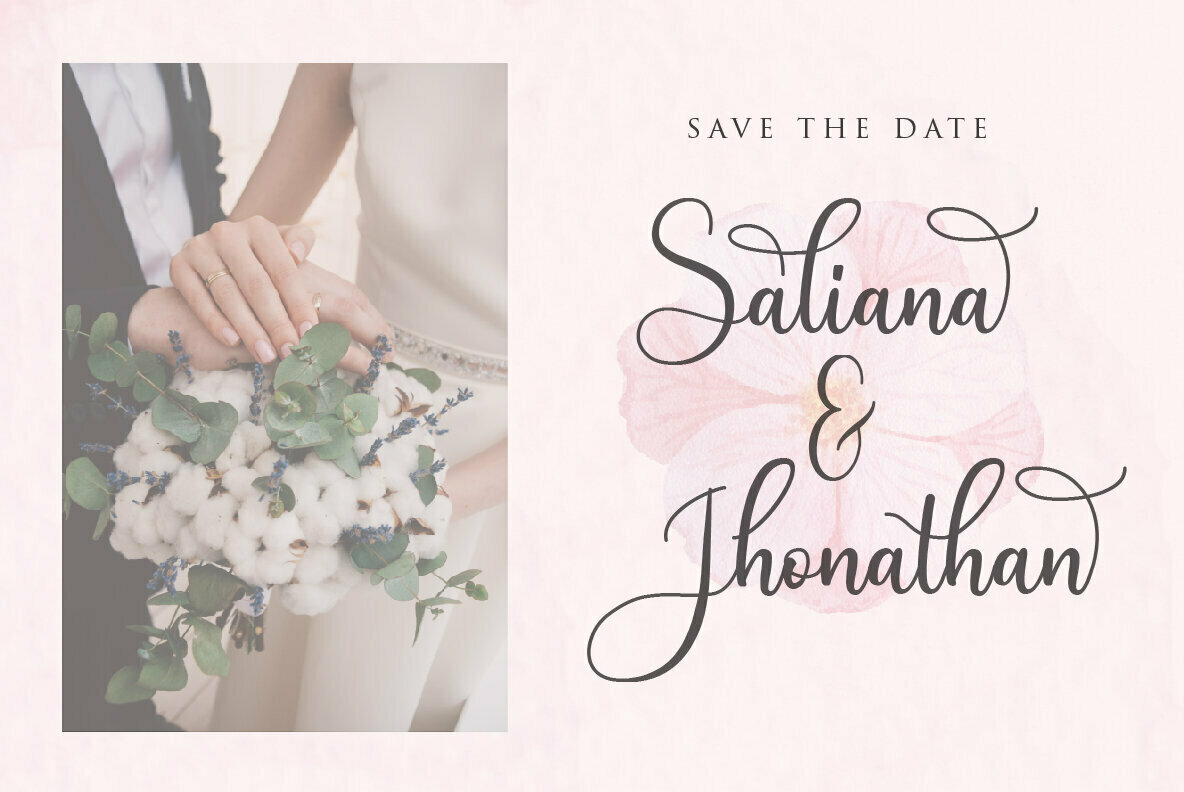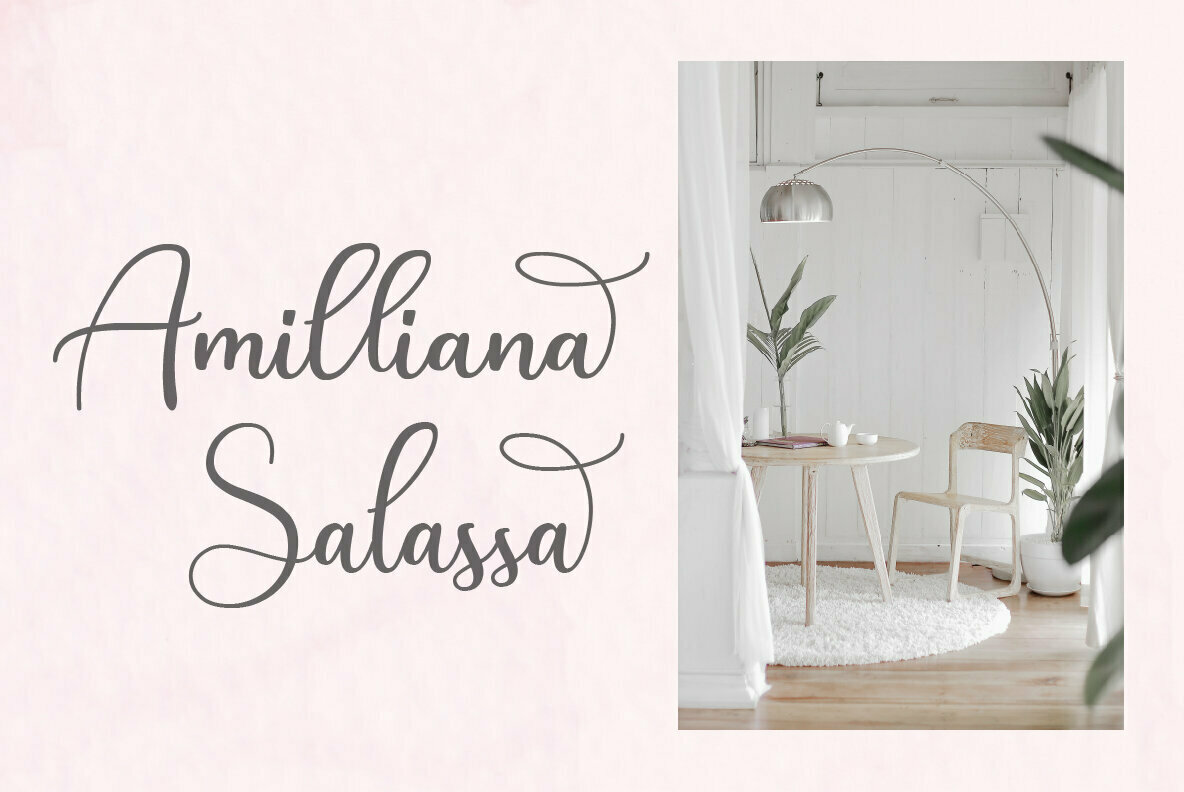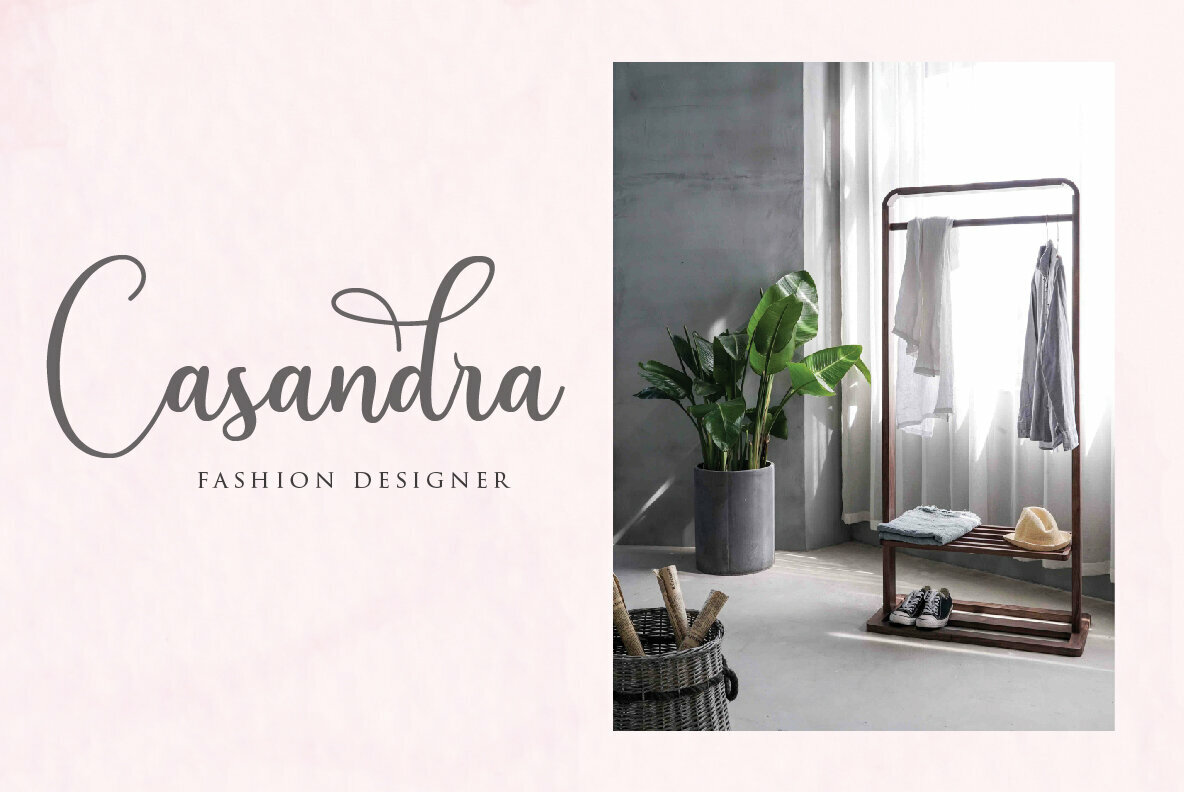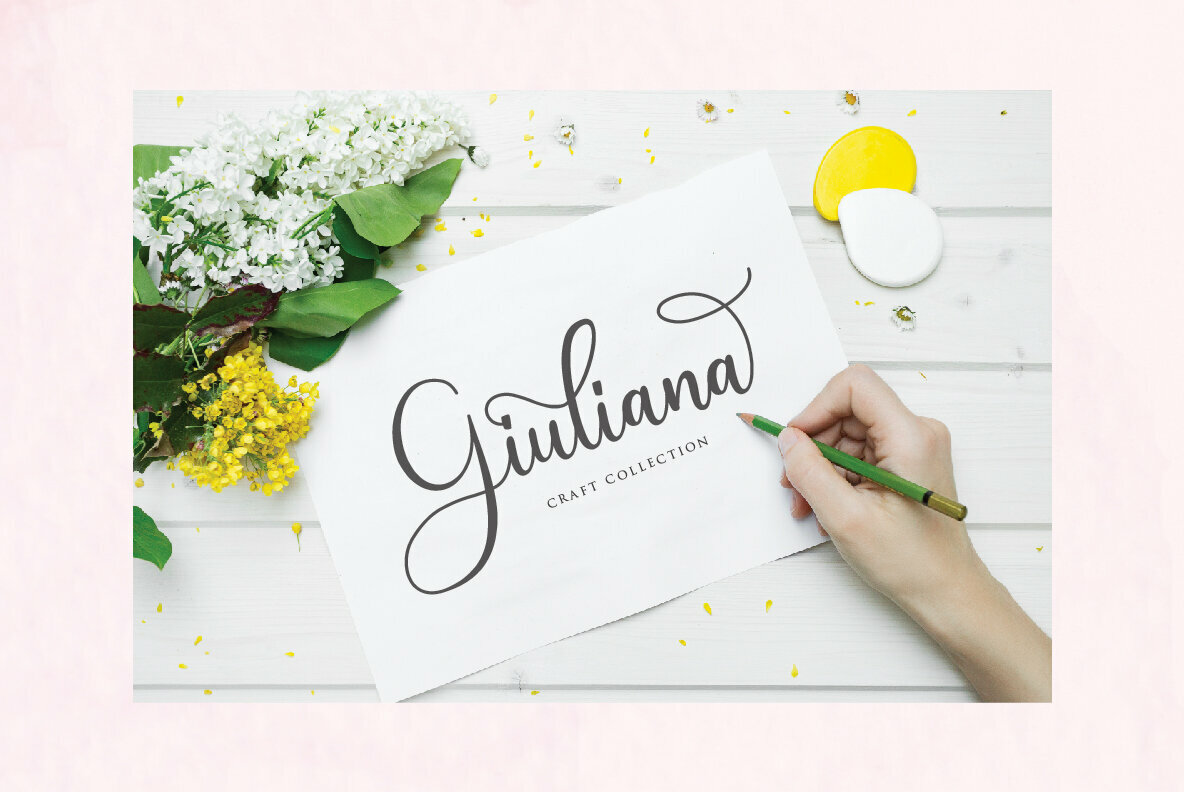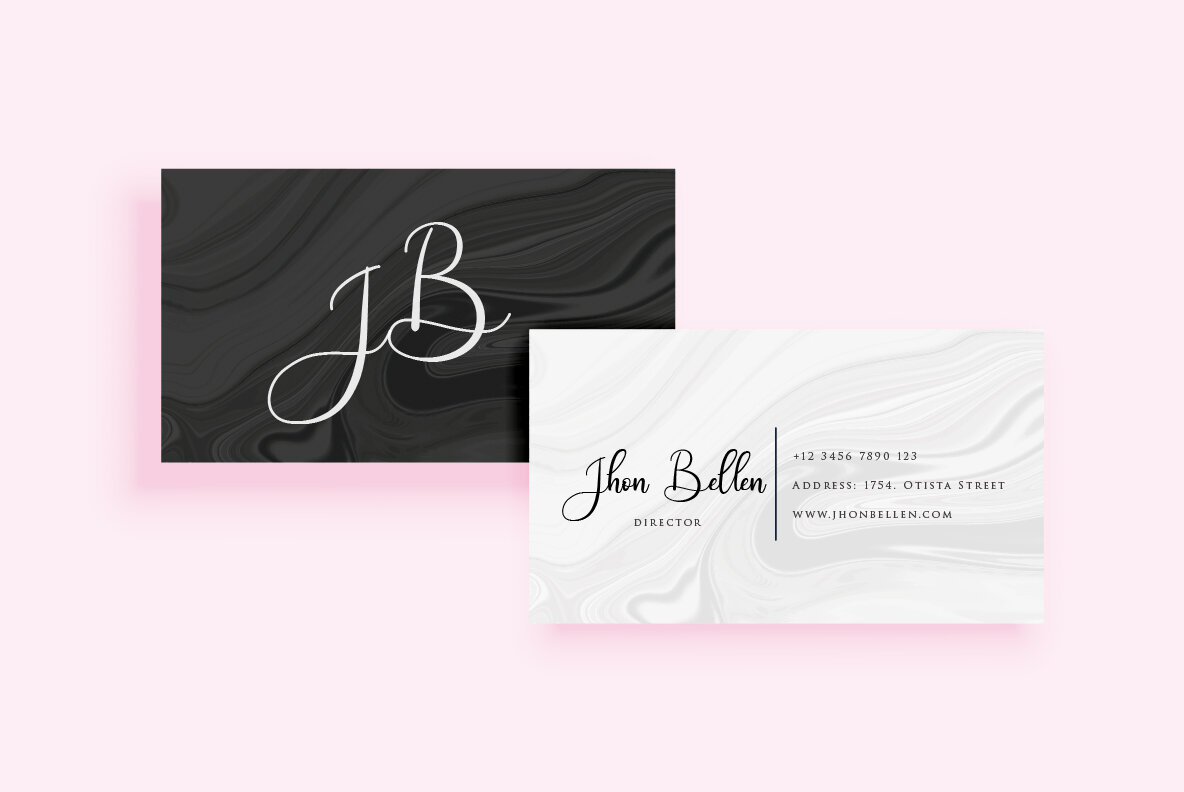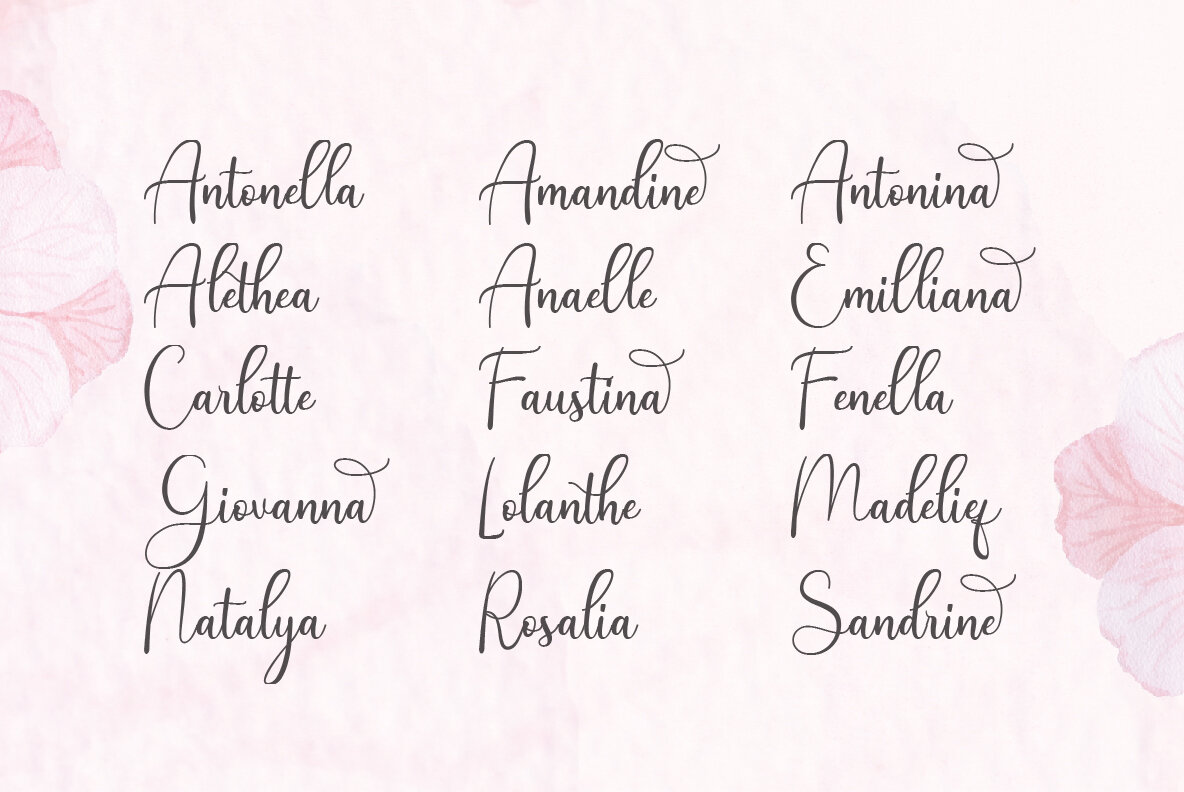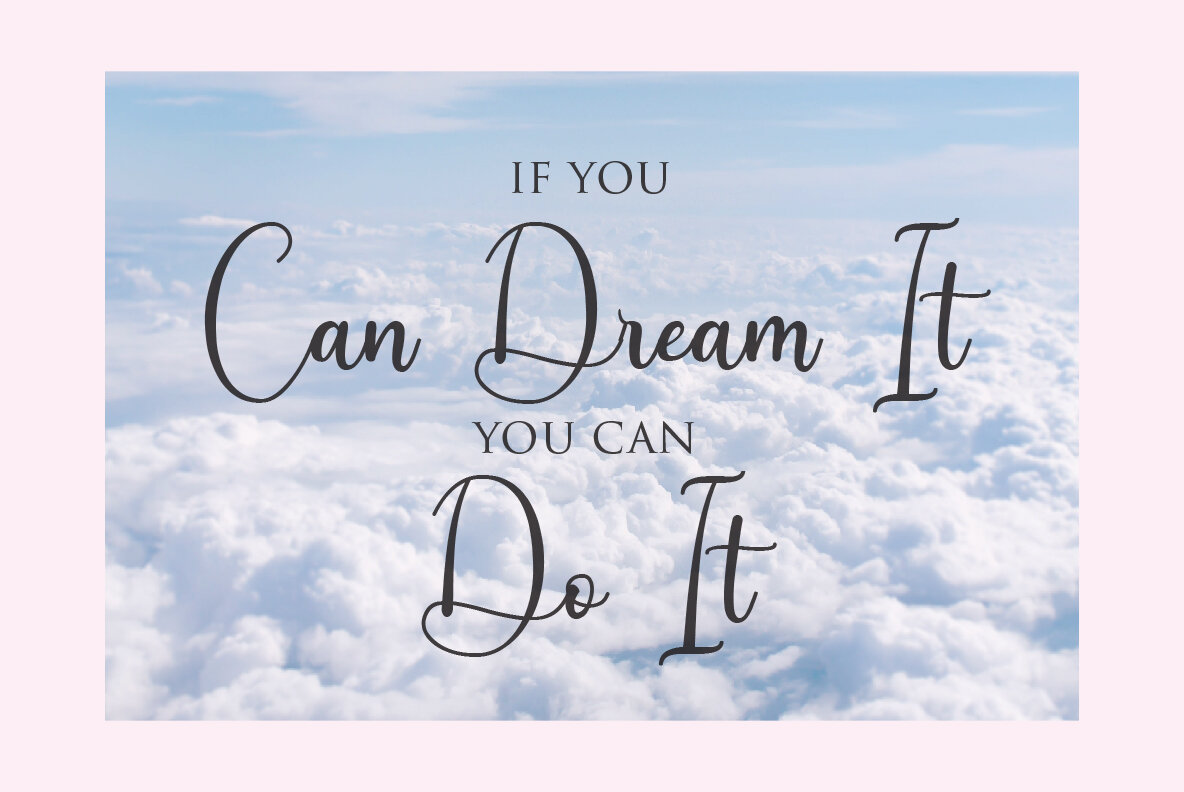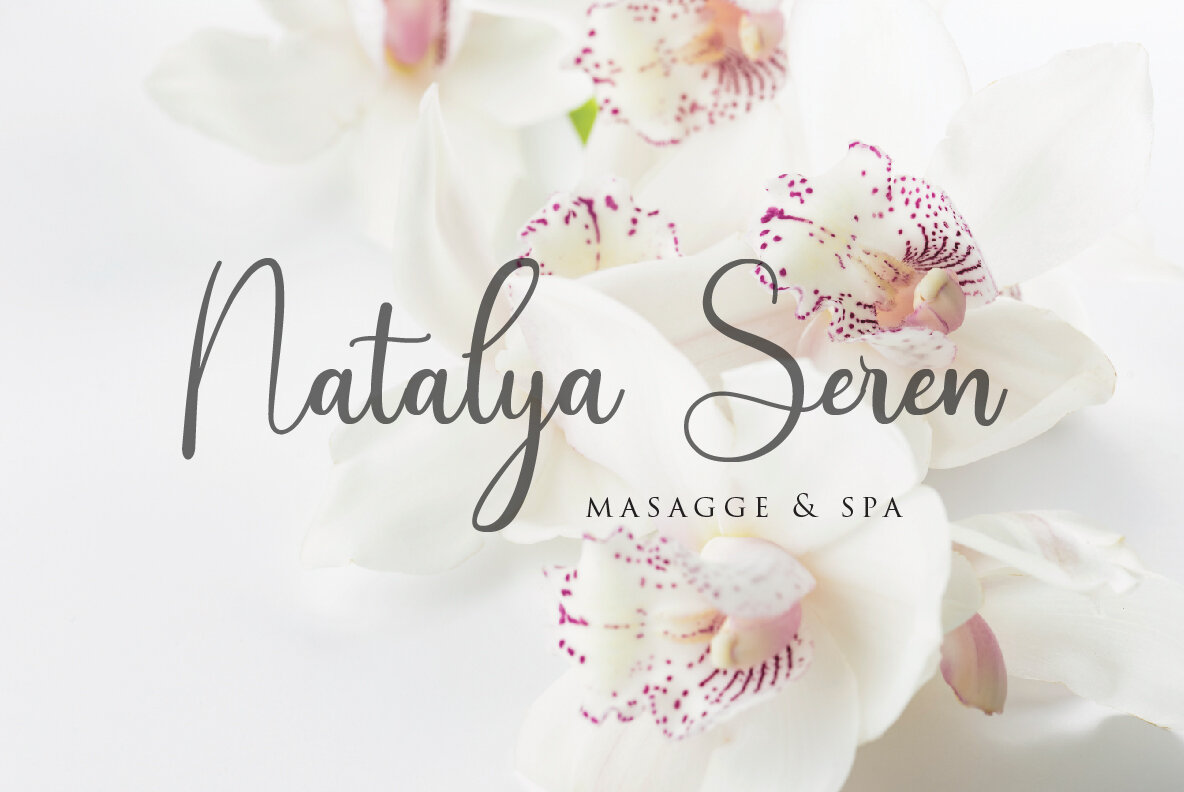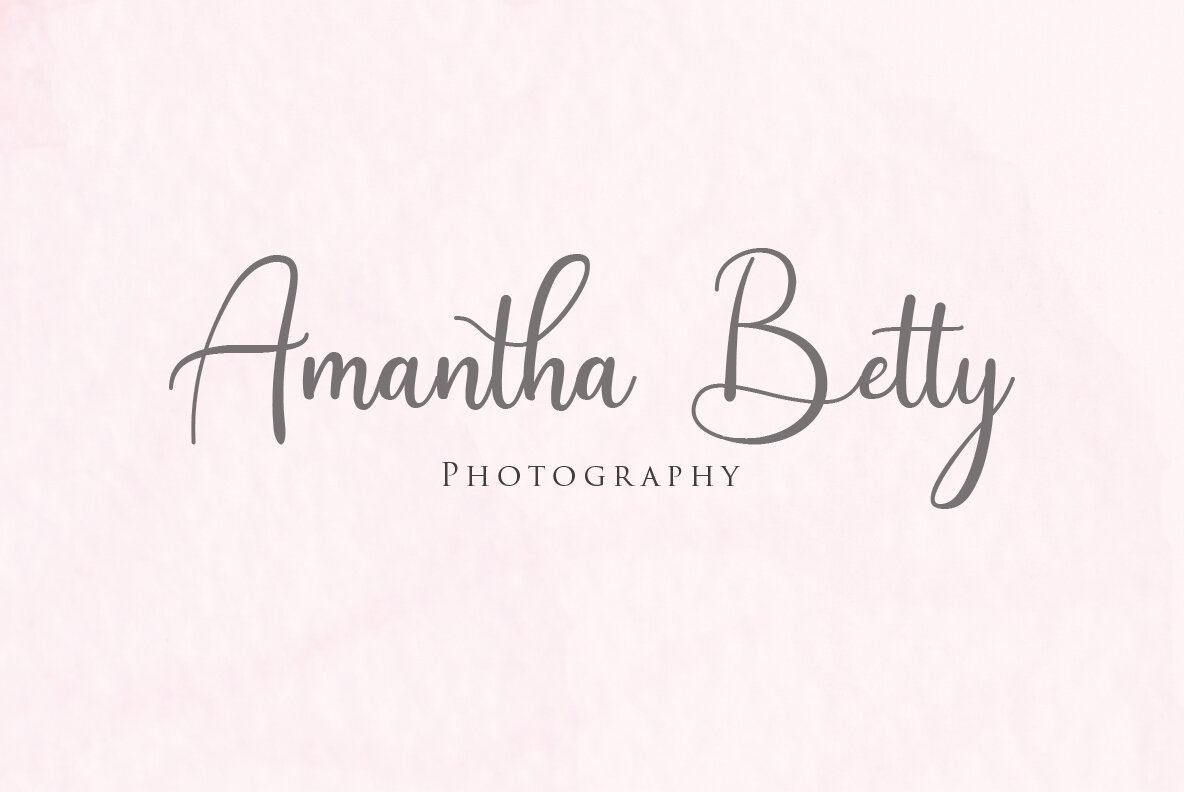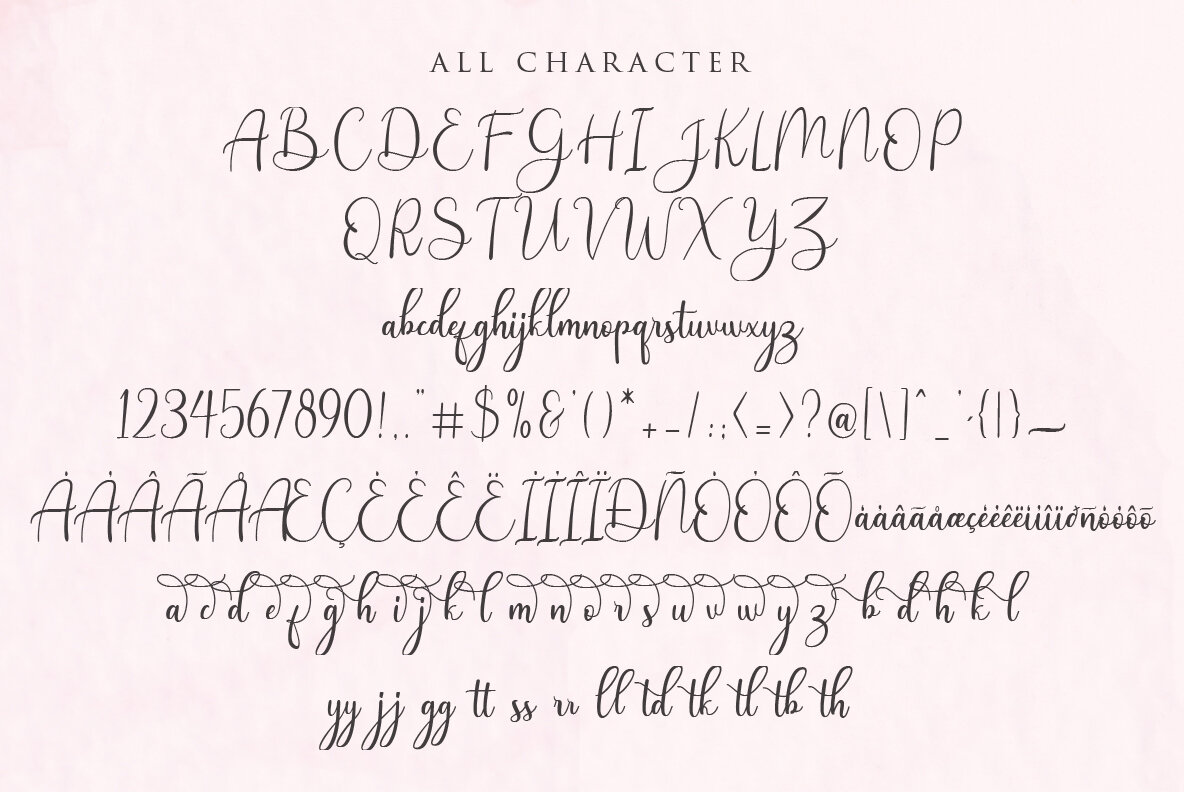
Andina Font
Andina
Introducing the Andina Script, a modern font crafted with elegance and simplicity by Sabrtype Studio. This versatile script font is ideal for an extensive range of projects, bringing a touch of sophistication and contemporary flair to your designs. Andina Script is the perfect choice for a myriad of creative endeavors: This font supports a variety of languages, making it an adaptable option for global projects. Languages supported include: Whether your project requires sophistication or simplicity, Andina Script by Sabrtype Studio delivers both with ease.Andina Script: Modern Elegance and Simplicity
Perfect For Diverse Projects
Broad Multilingual Support